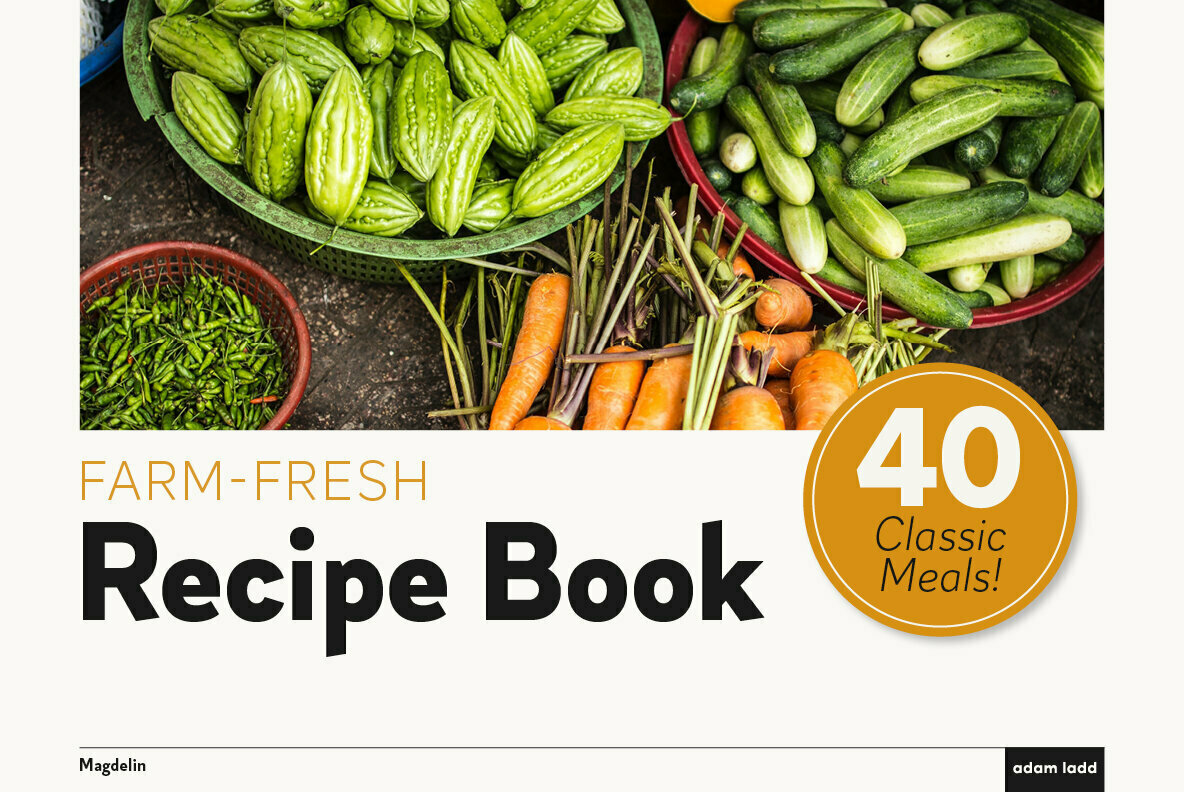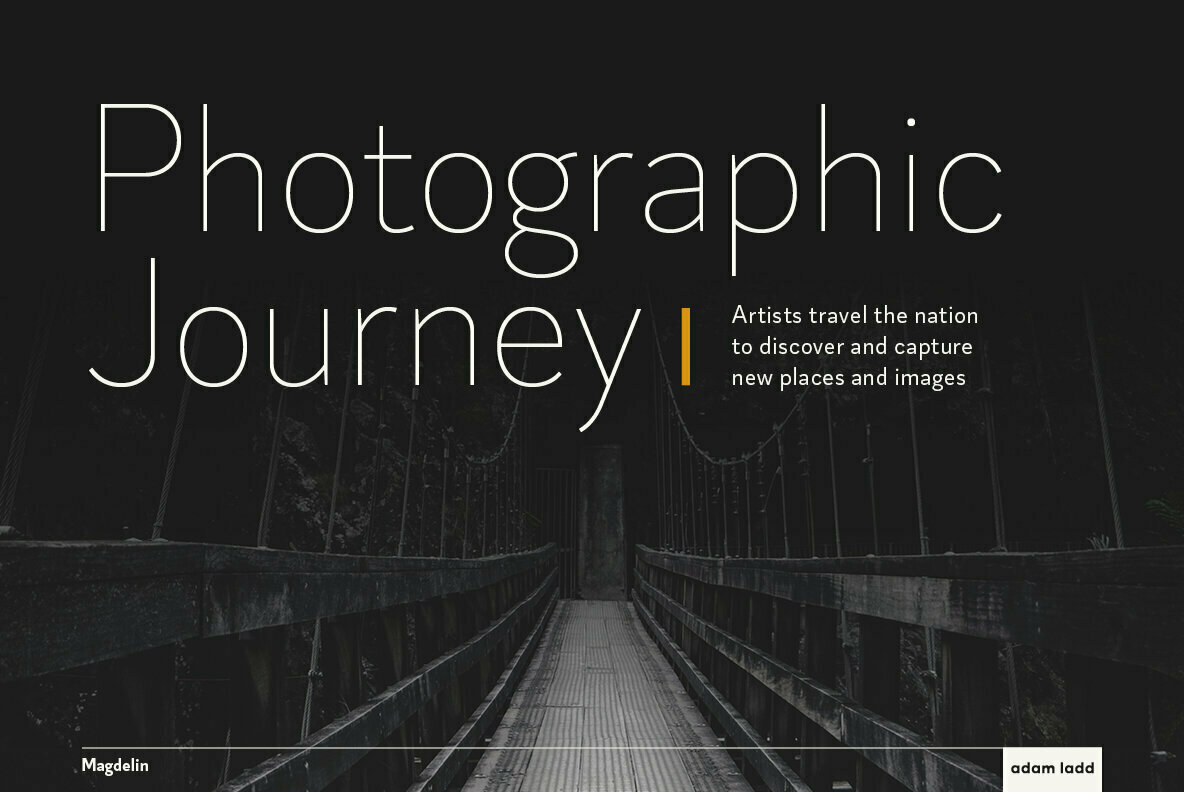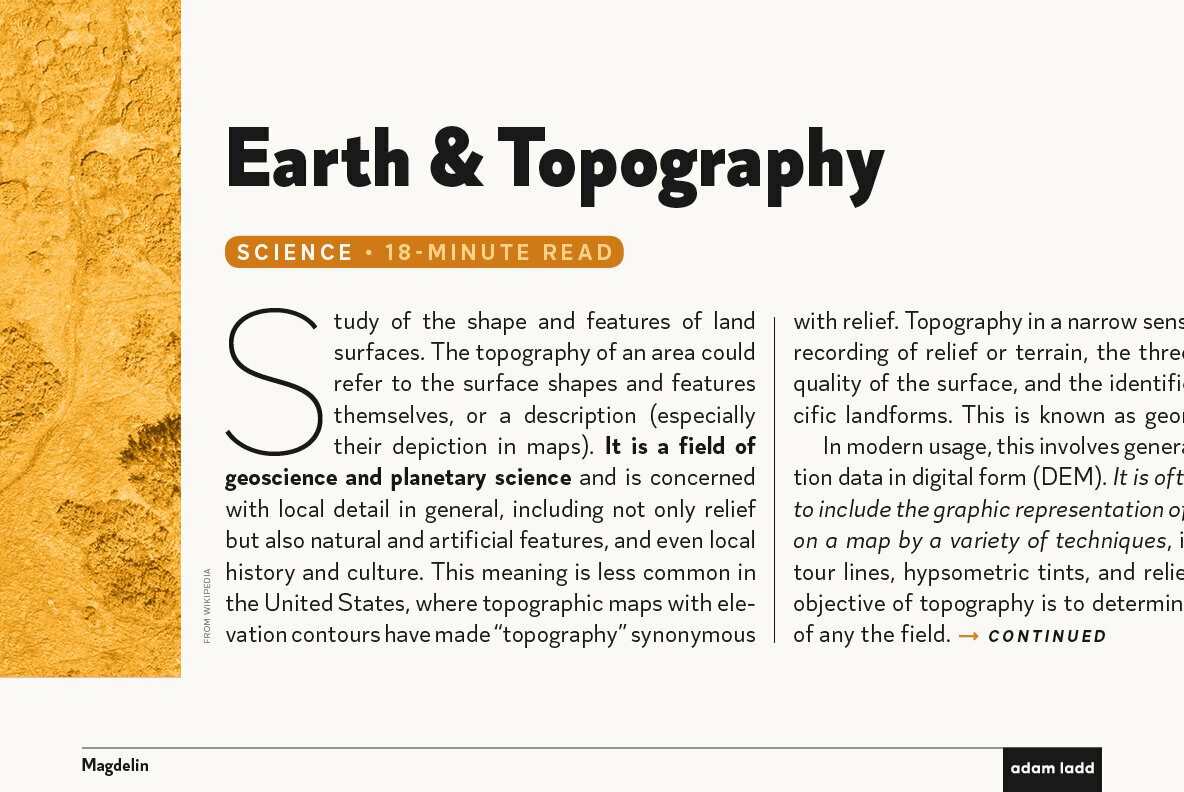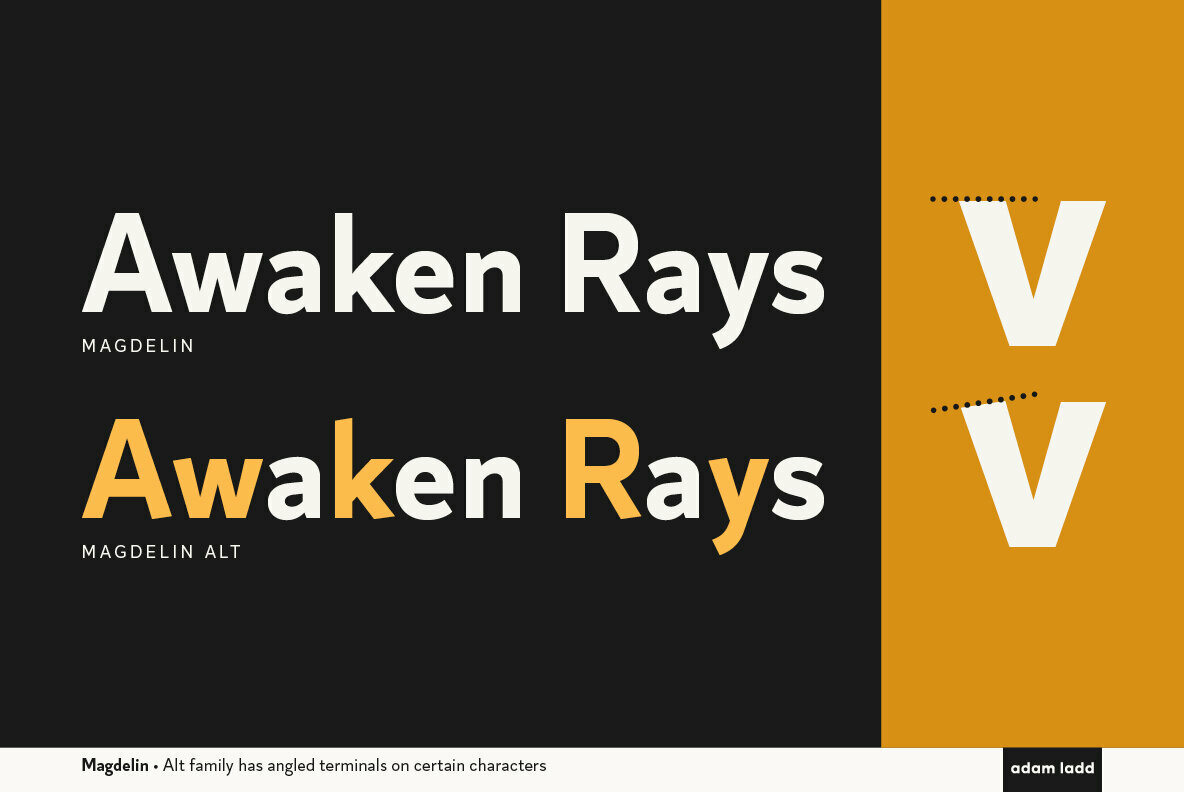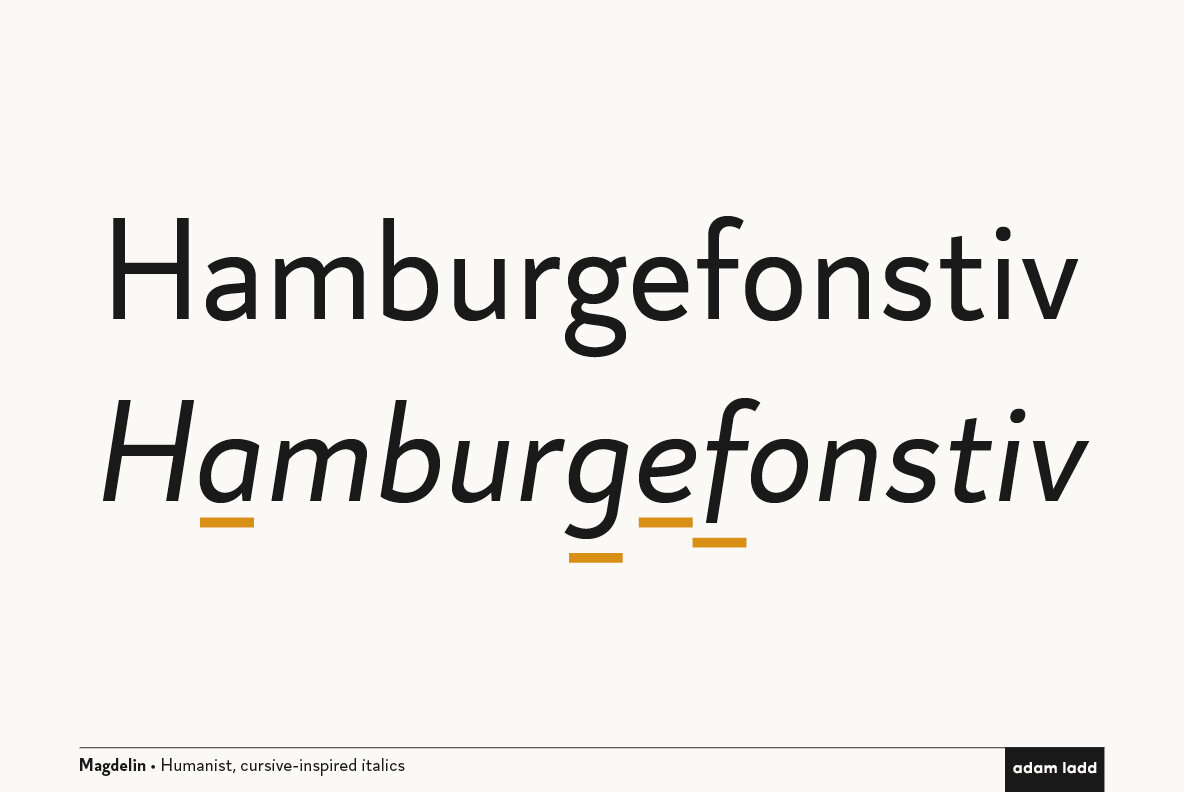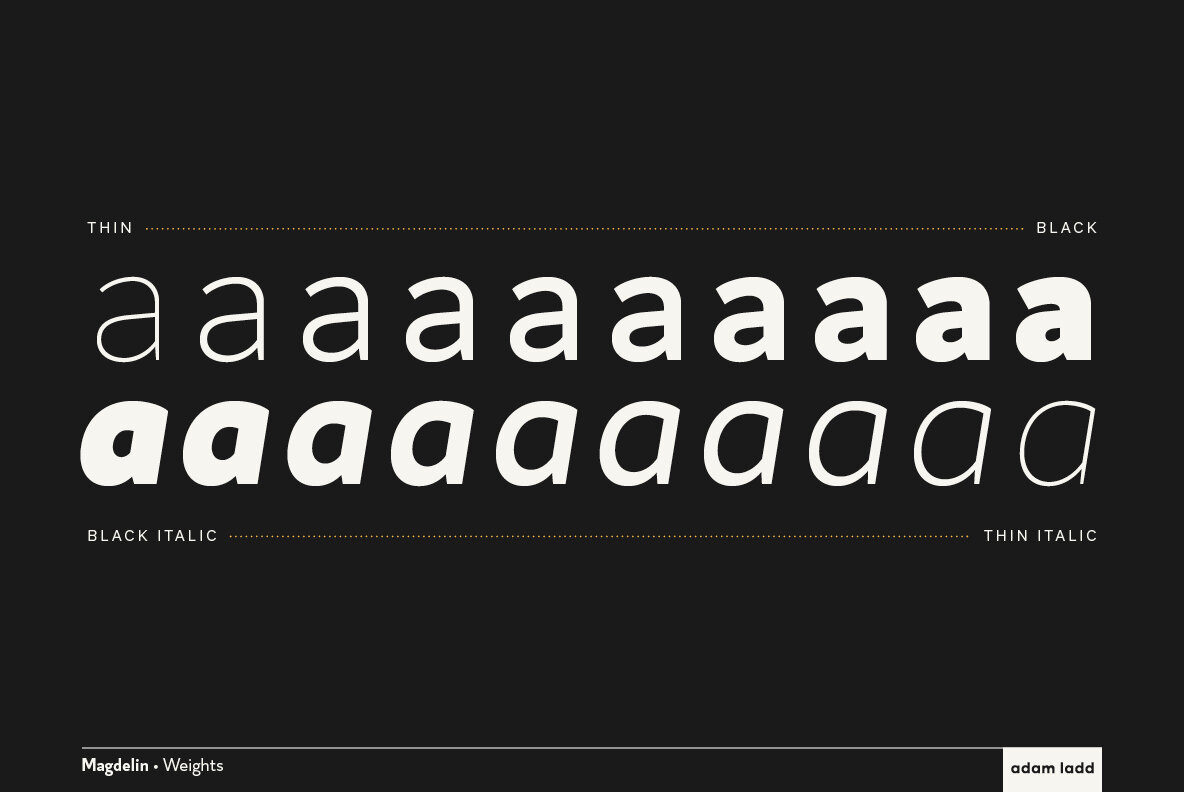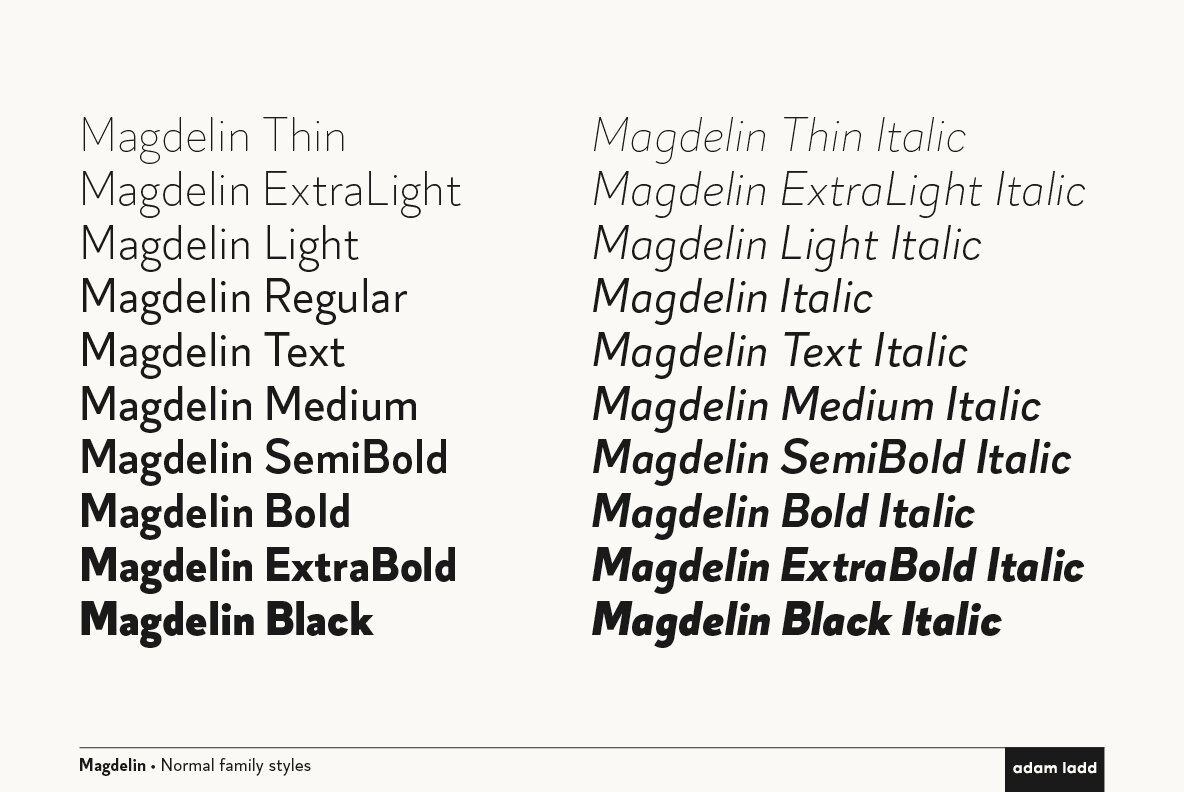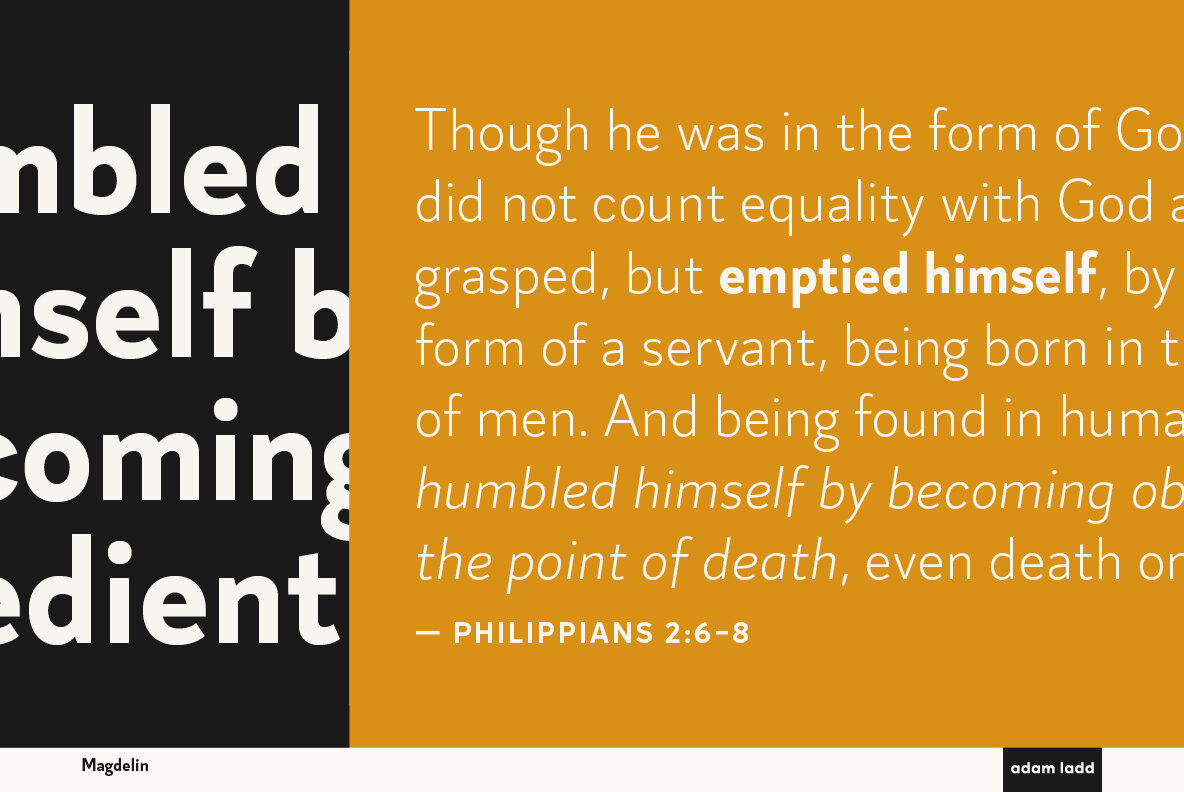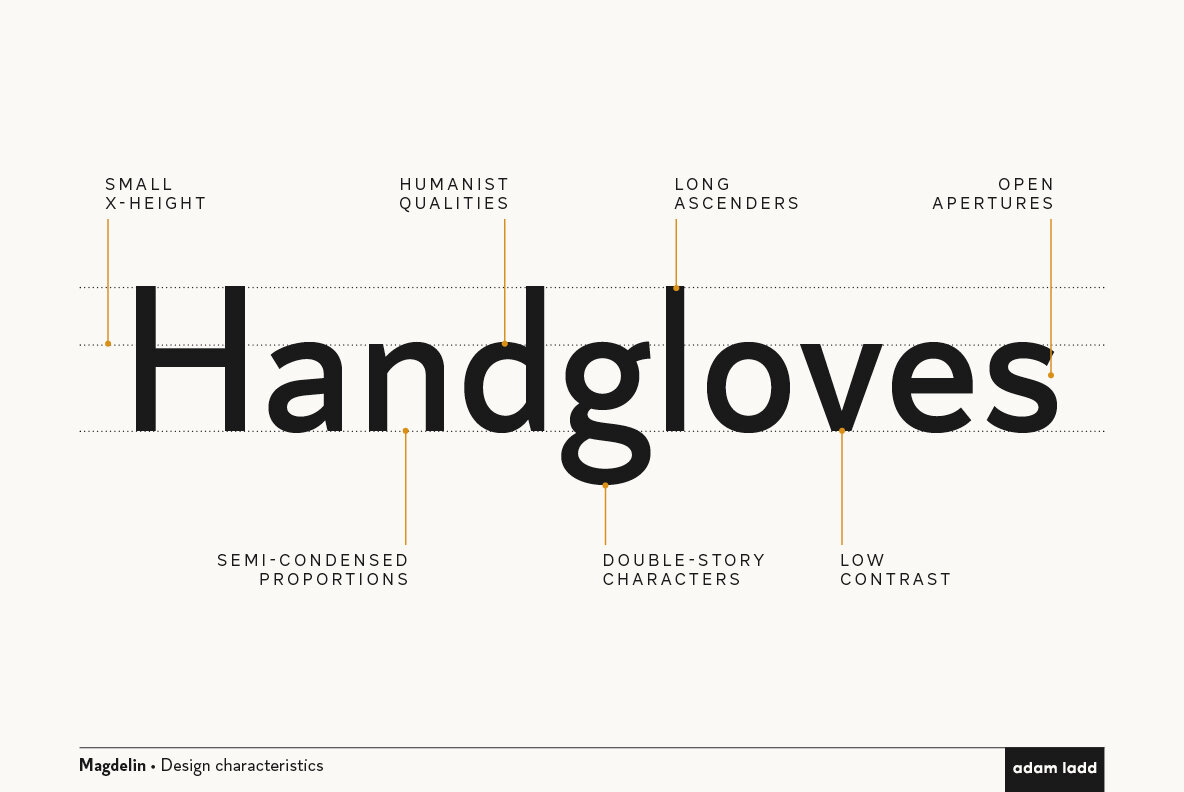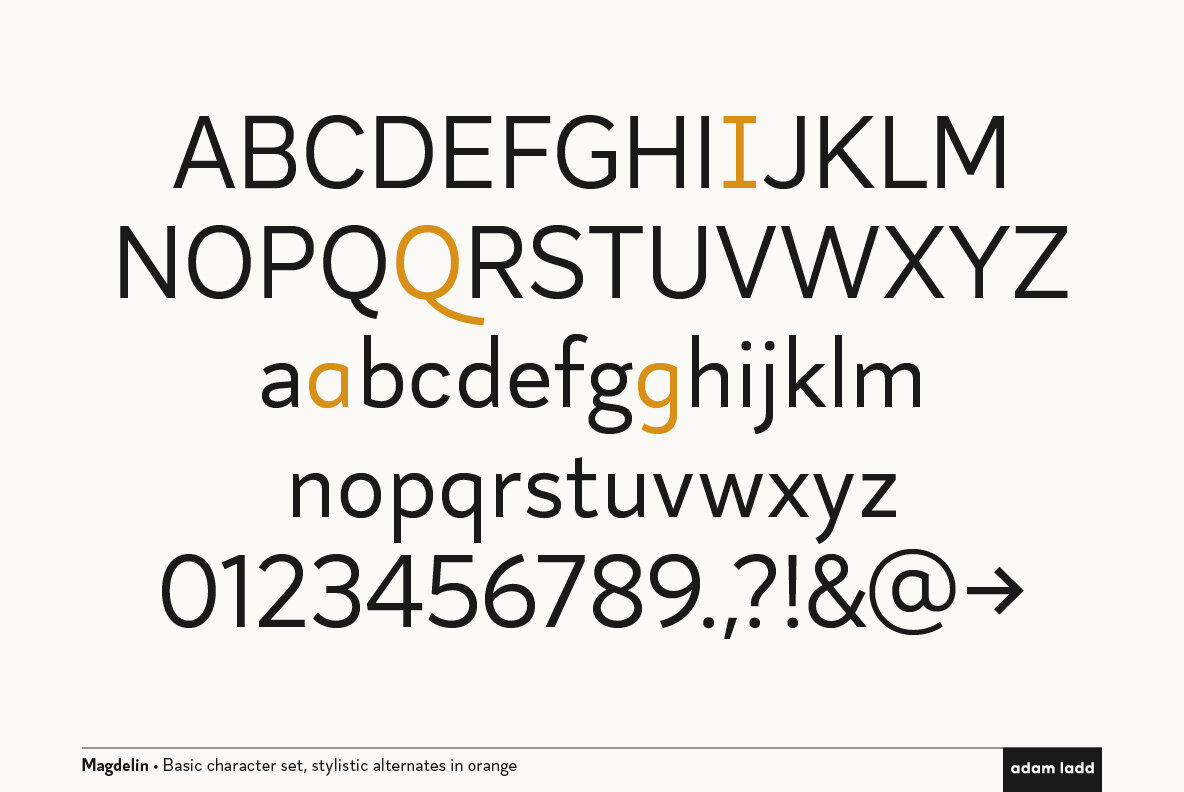
Magdelin Font
Magdelin is a minimal yet warm gothic sans serif typeface consisting of 40 fonts with normal and alternate families. At its core, the design is a gothic sans having simple forms and low contrast, yet it takes some qualities from the humanist class with its calligraphy or cursive-inspired details found in the italics and the bowl shapes of characters like b and d. The weights range from thin to black.
The small x-height, longer ascenders and descenders, and semi-condensed proportions give it a bit of a vintage or classic feel while still appearing contemporary and modern in current typographic landscapes. The clean design allows it to be a useful and versatile workhorse family great for branding, packaging, editorial, books, websites, digital, and more.
With the alternate family (Magdelin Alt) comes even more calligraphic details by having certain strokes terminate with an angle so it reflects a broad-nib pen drawn at an angle. This increases the overall warmth in appearance.
Magdelin has many OpenType features:
• Stylistic alternates
• Discretionary ligatures
• Case-sensitive punctuation for All Caps
• Tabular figures
• Fractions, numerators, denominators
• Superscript, subscript
• Slashed zero
With over 600 glyphs, this font has extensive Latin language support (100+ Latin languages) for Western, Central, and South Eastern European.